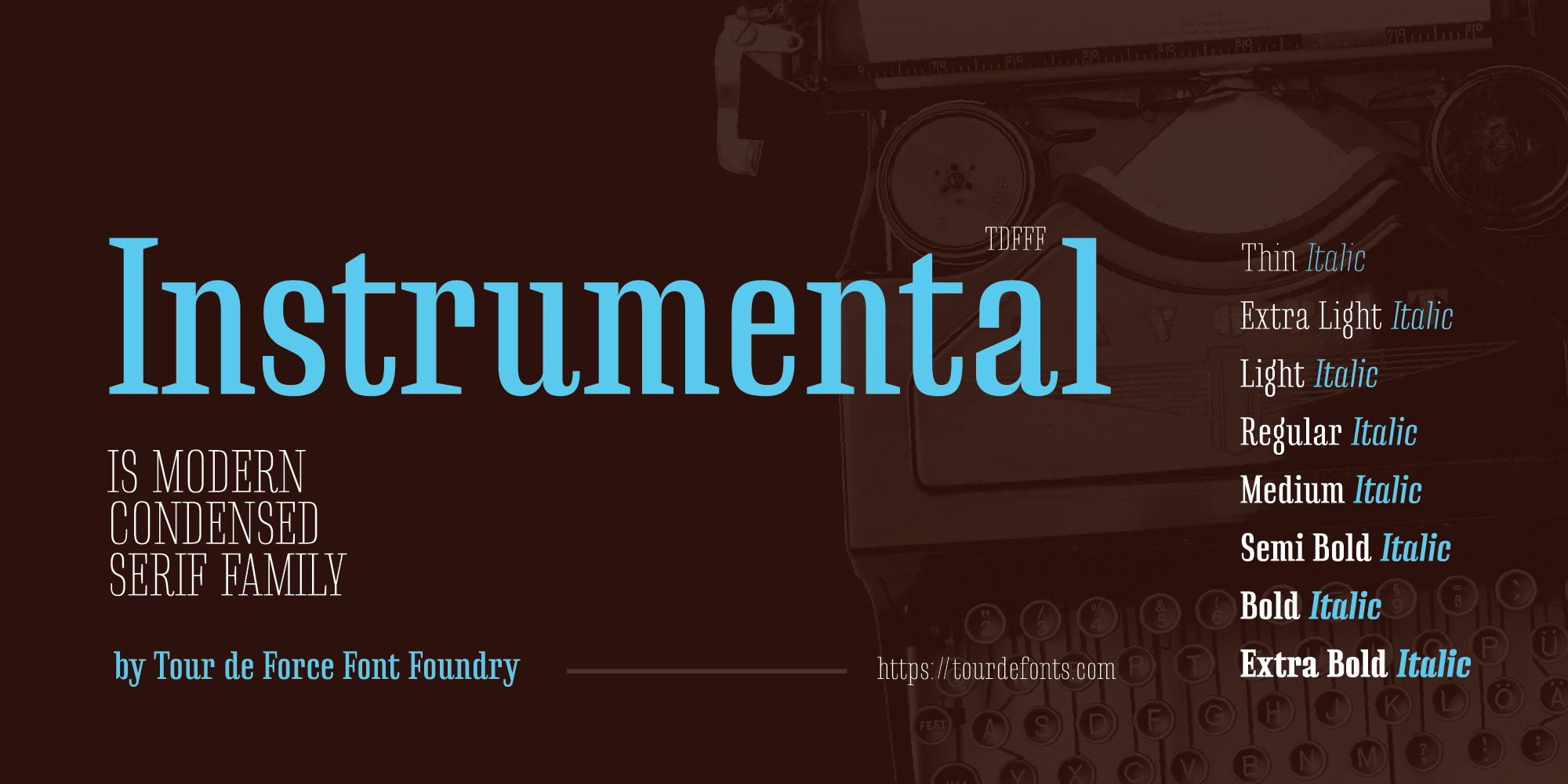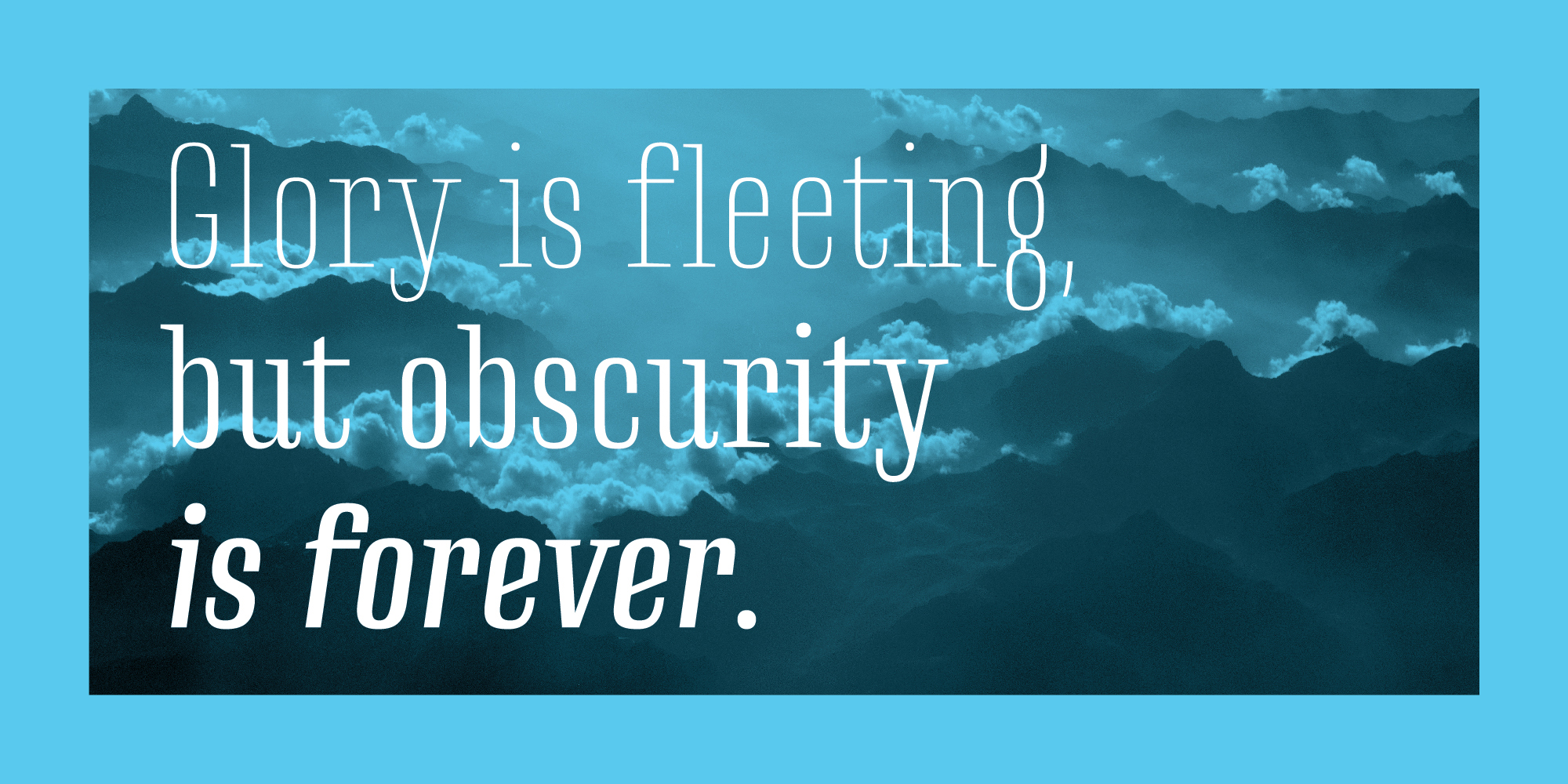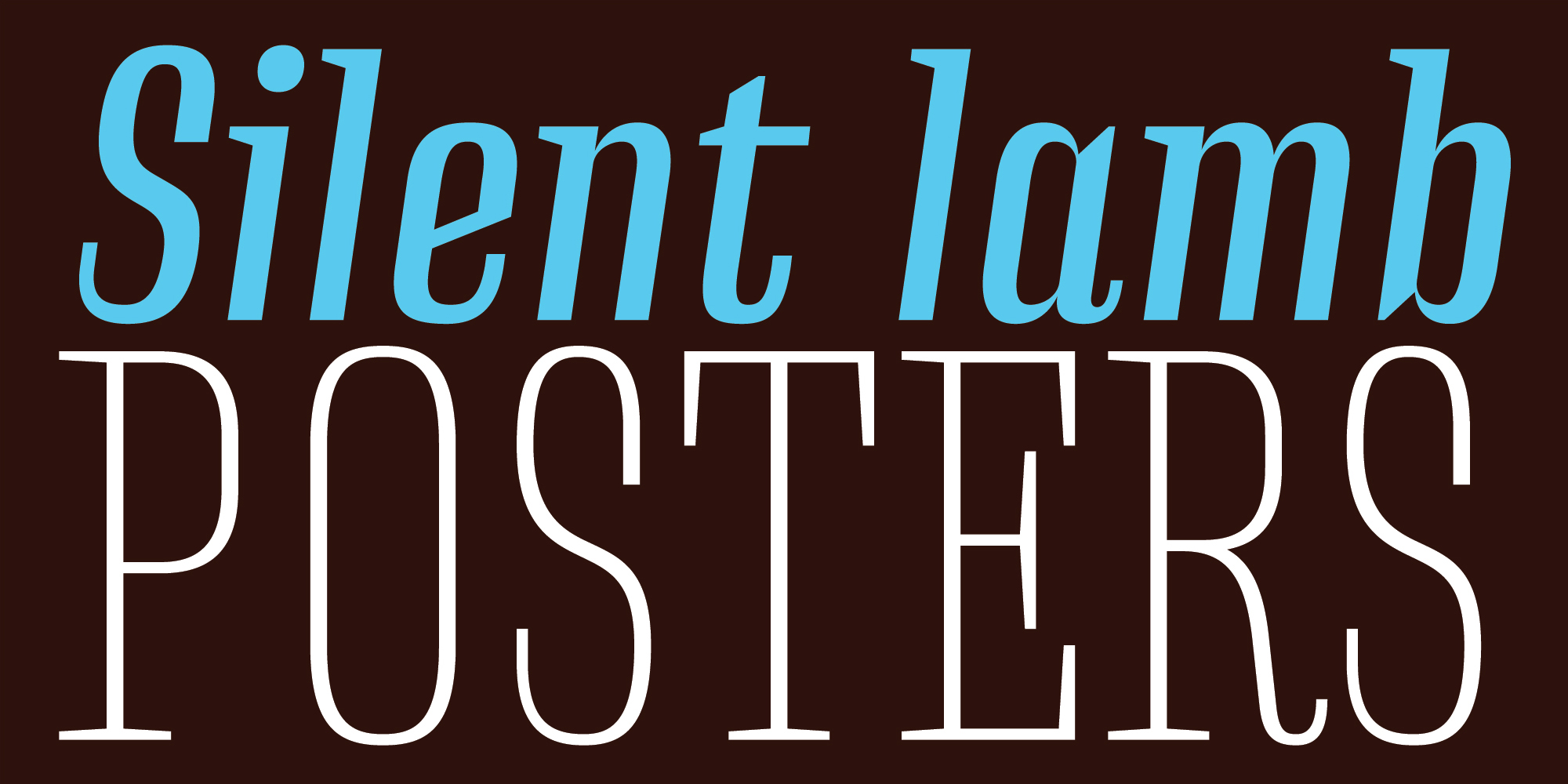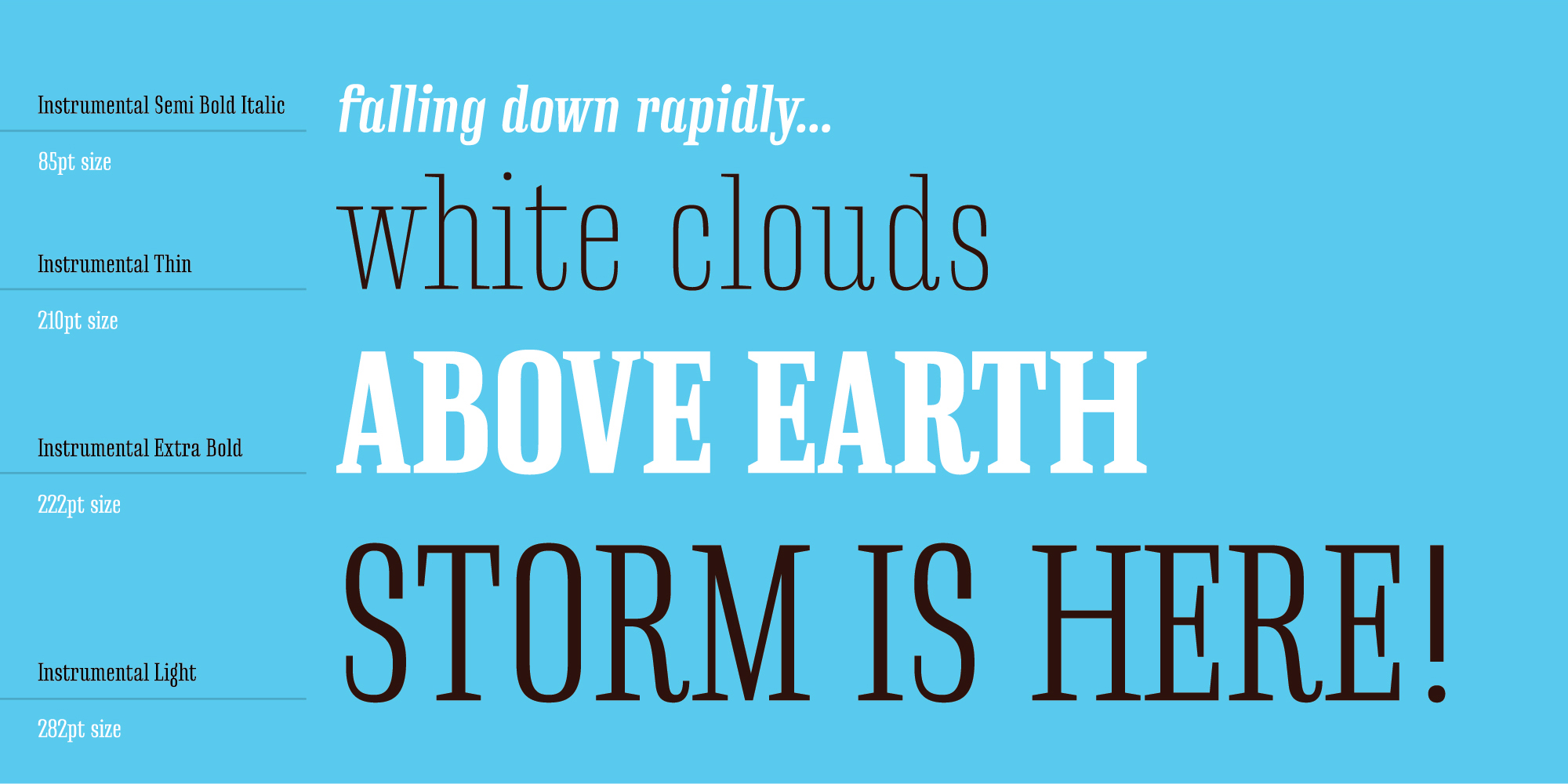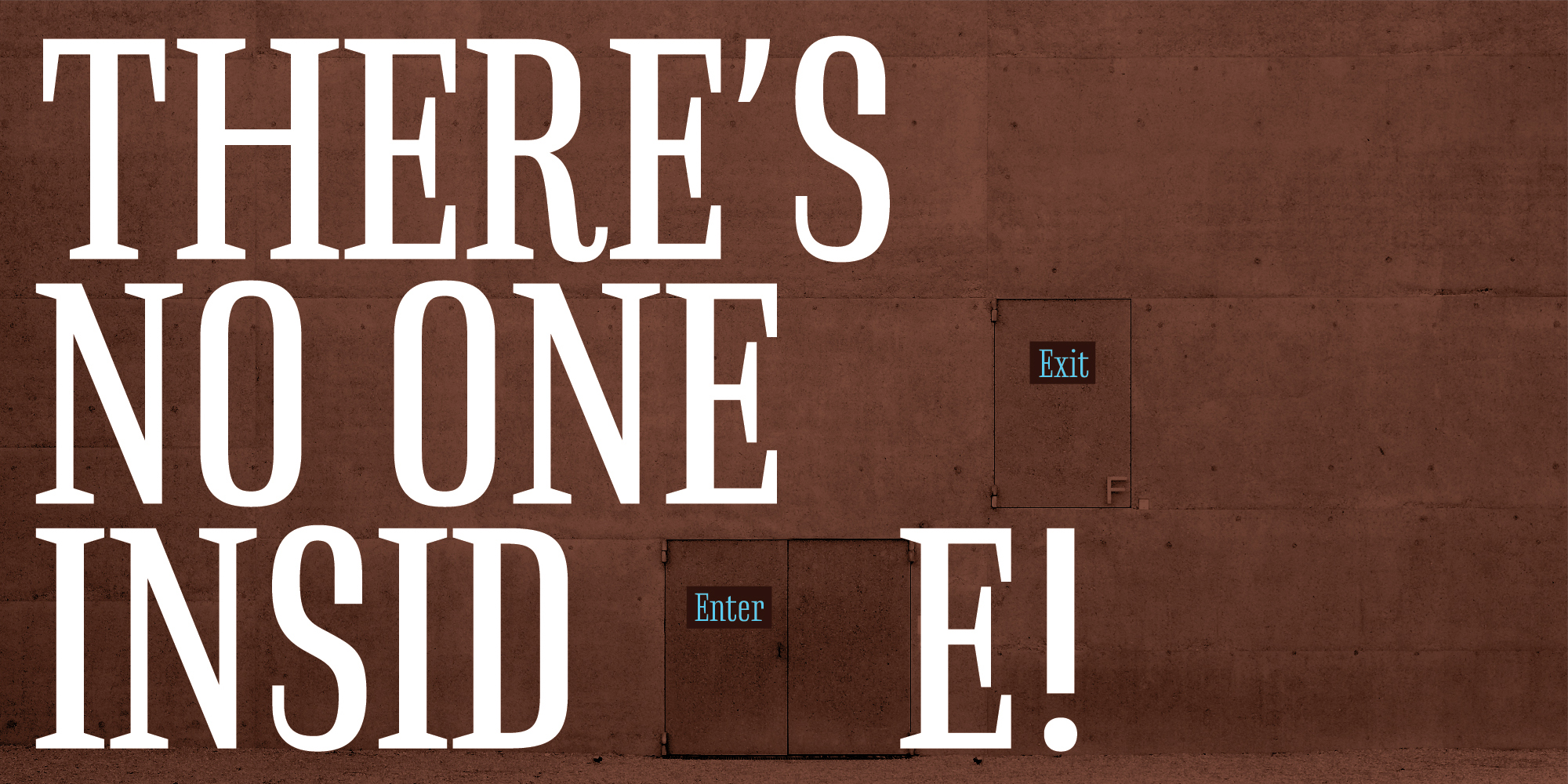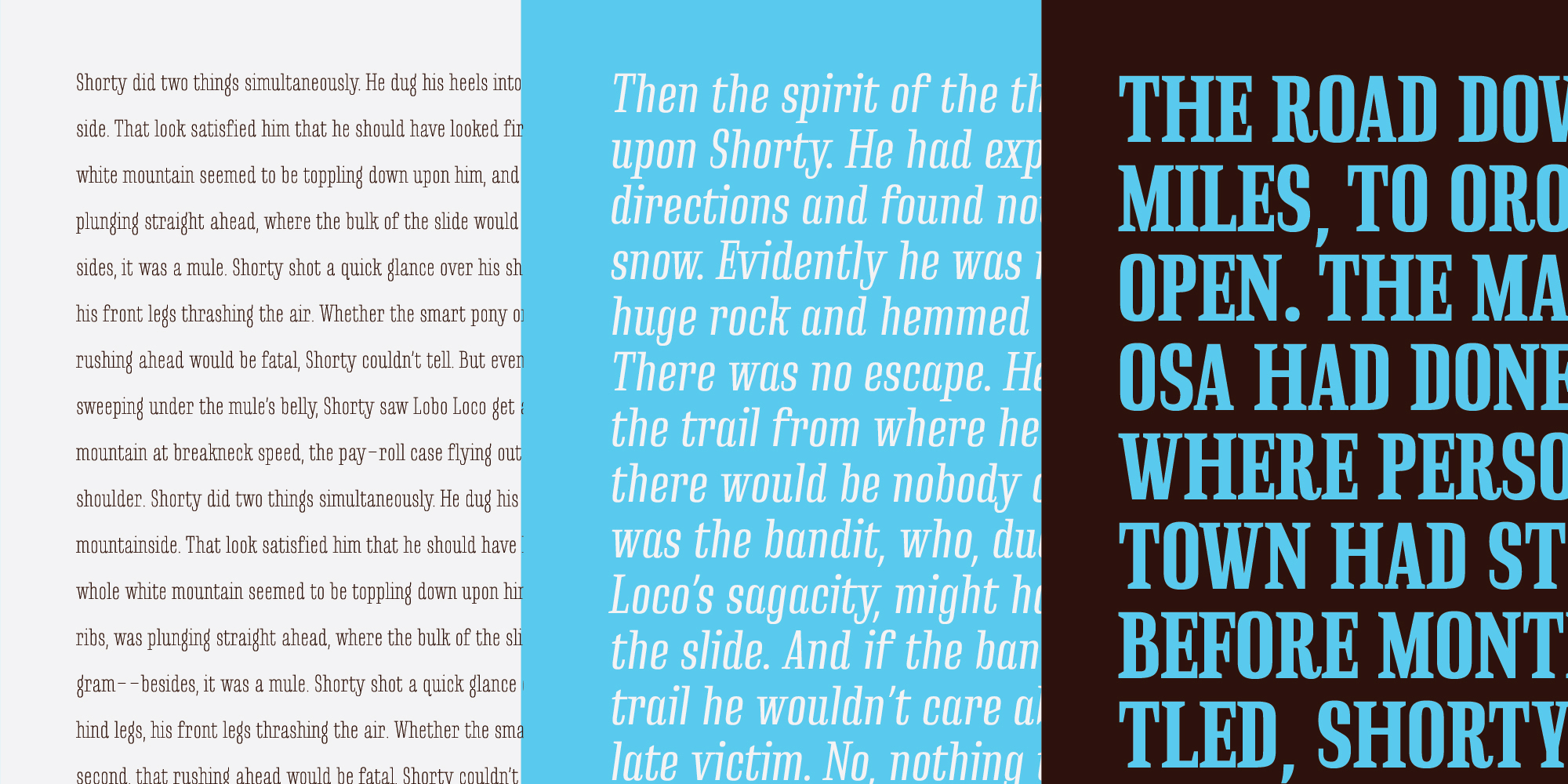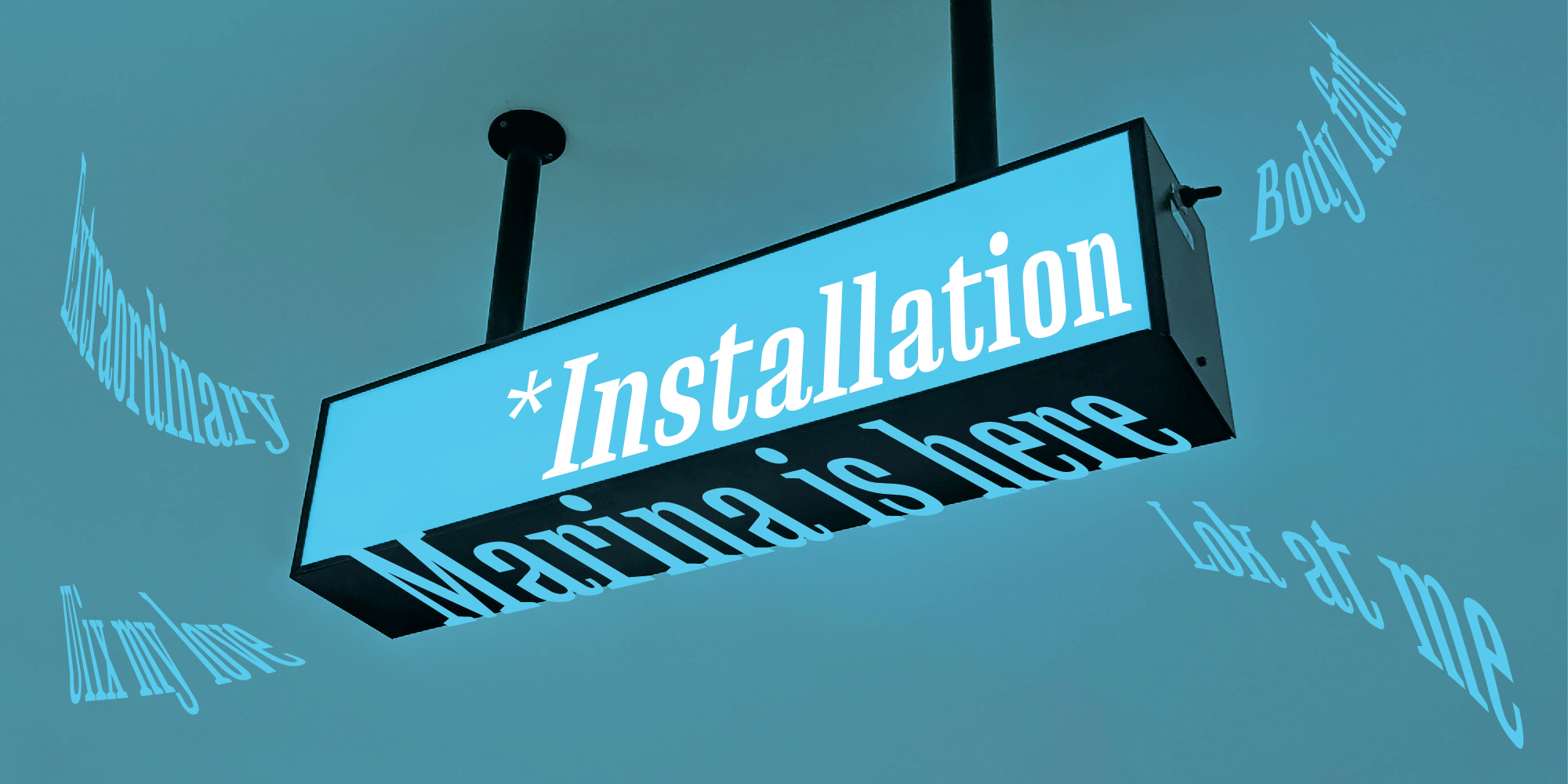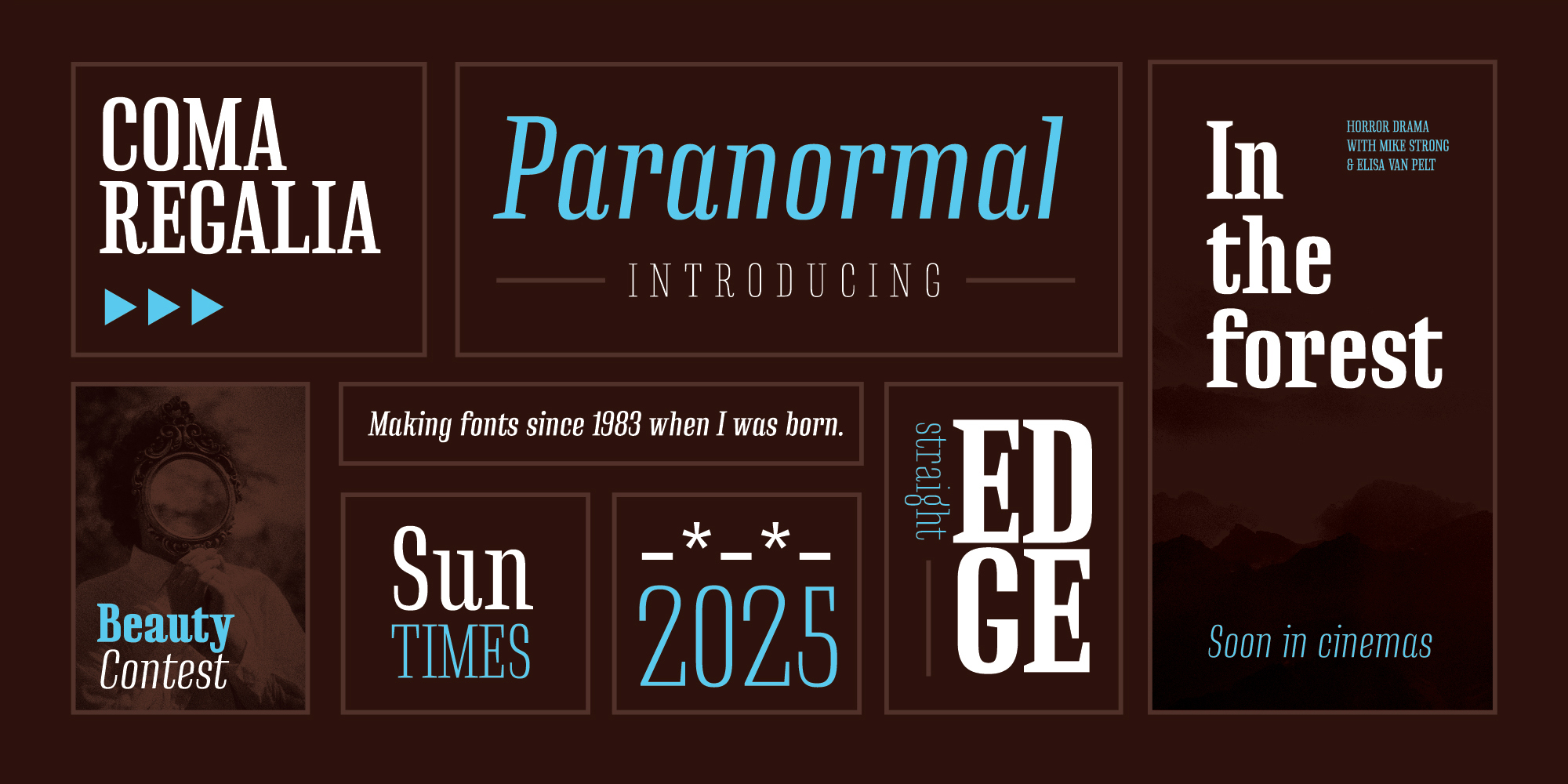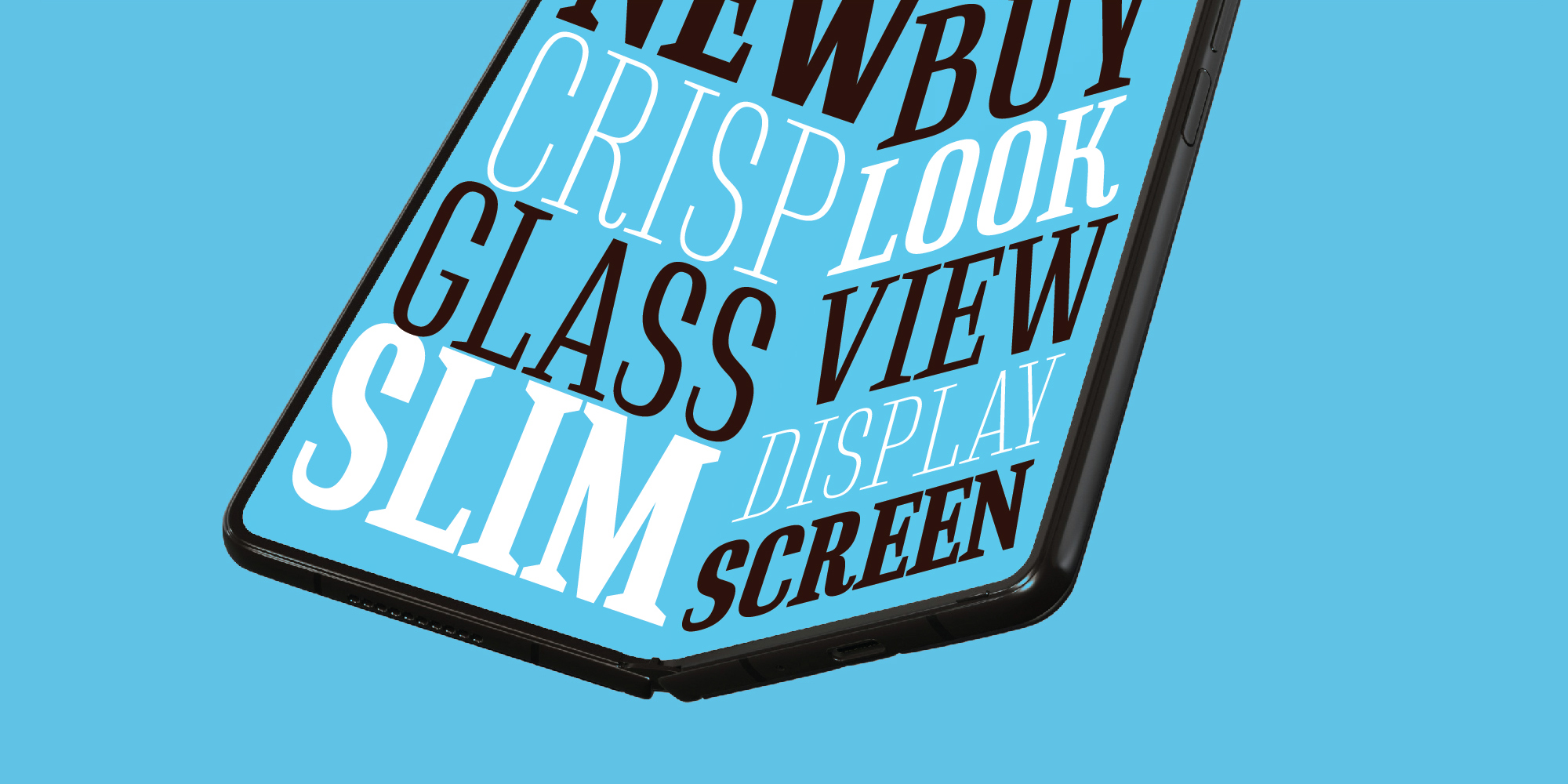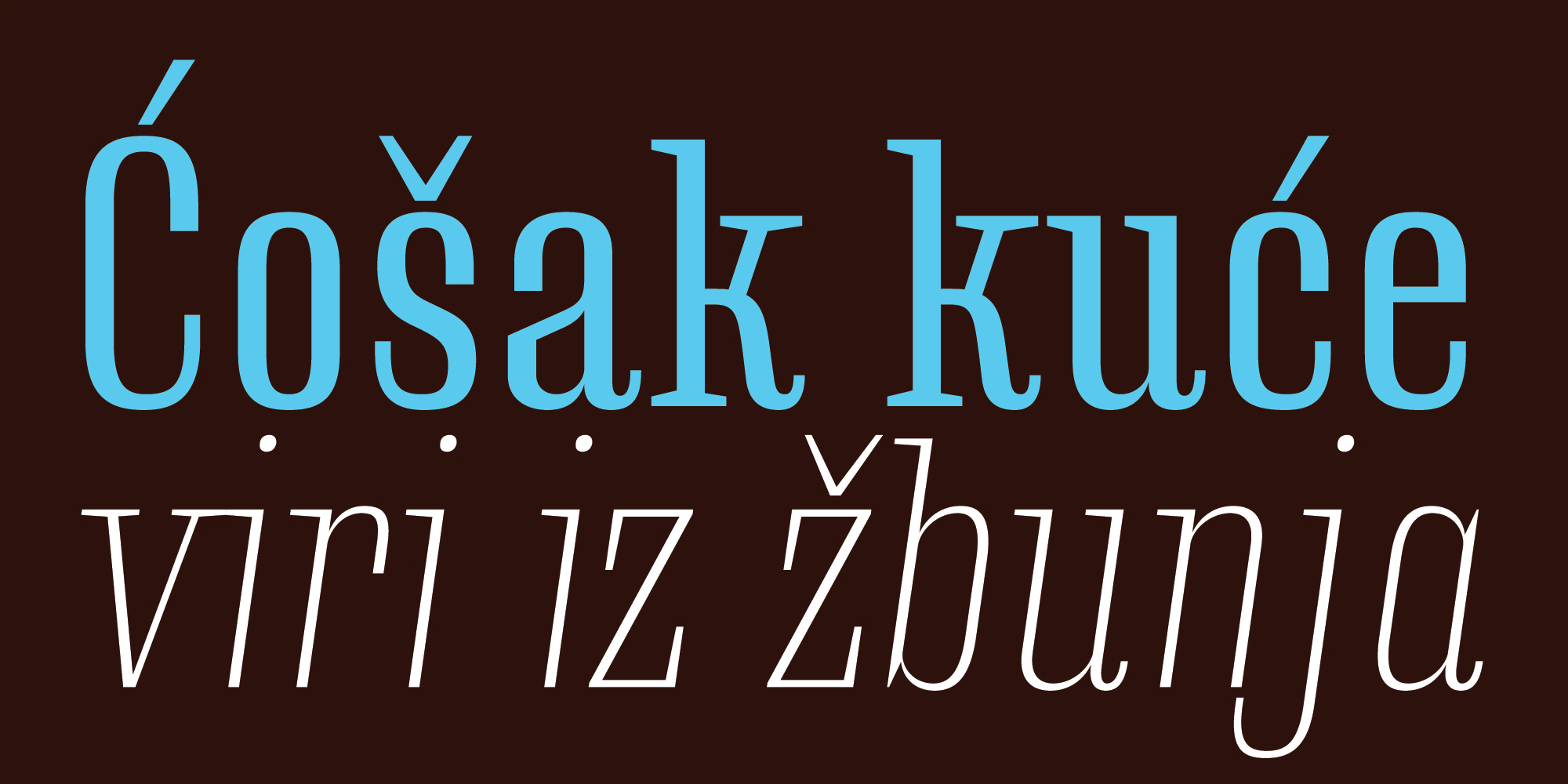
Instrumental is condensed serif font family that comes in 16 styles – 8 weights and 8 Italics.
Compact, well balanced letter shapes are designed with increasing stem contrast – as weights goes heavier, contrast does it also. Design gives impression of certain vintage influences combined with modern design elements. All together, Instrumental packs paragraphs and text lines pretty nicely, giving text a dose of harmony and easiness of reading.
As its name suggest, Instrumental is prepared to fight with different kind of projects – we delivered the music, you deliver a words. Contains Extended Latin character map coverage with standard ligatures as OpenType feature.